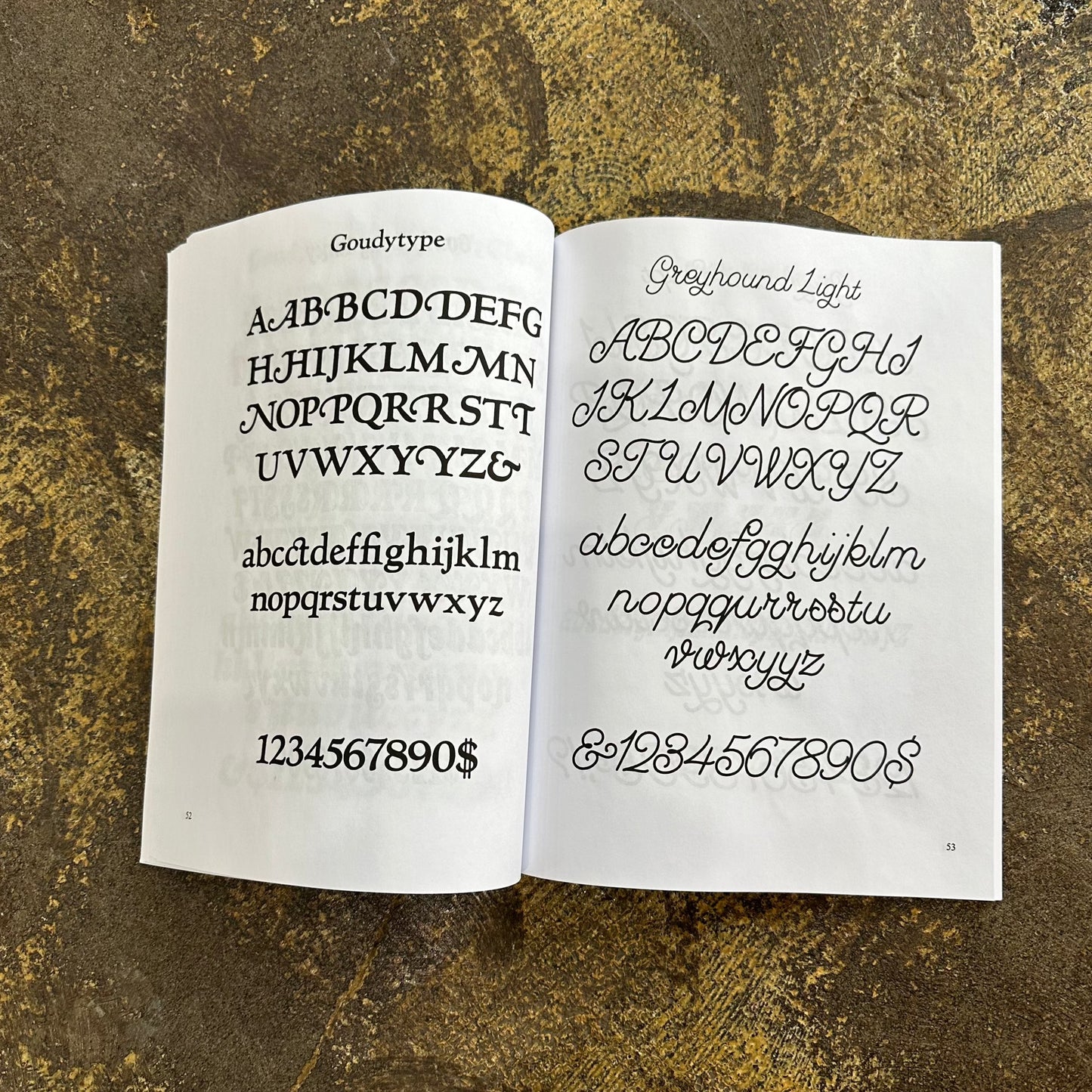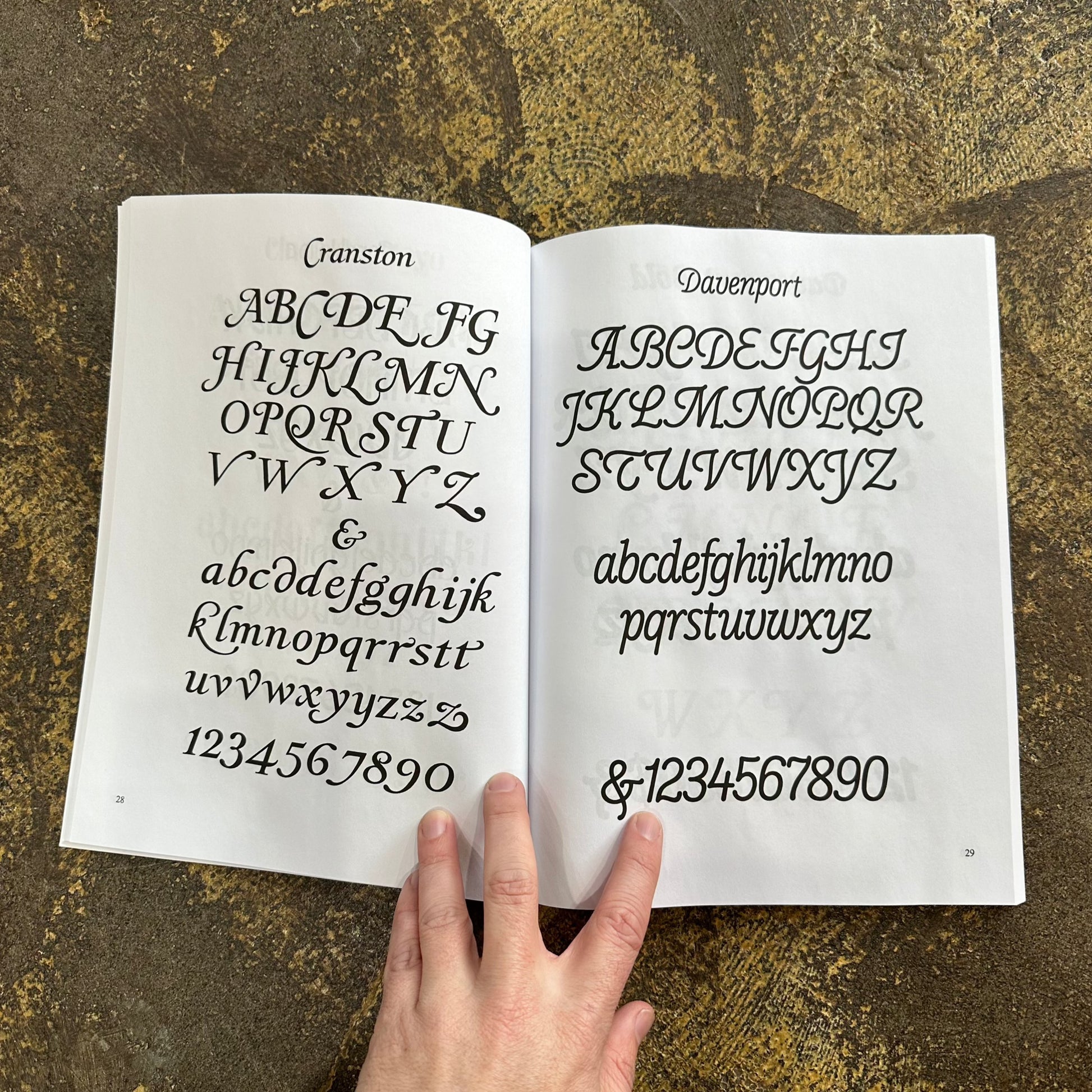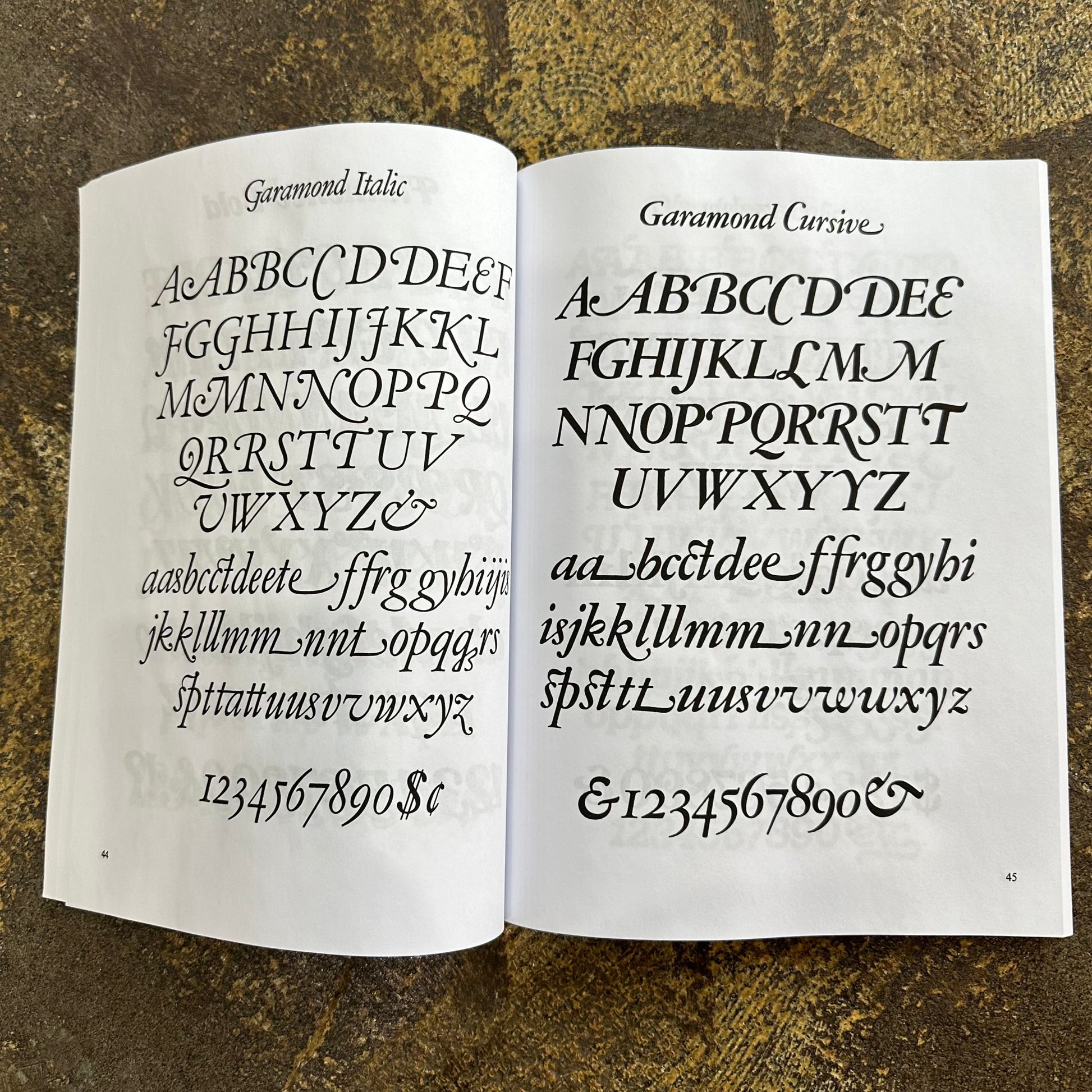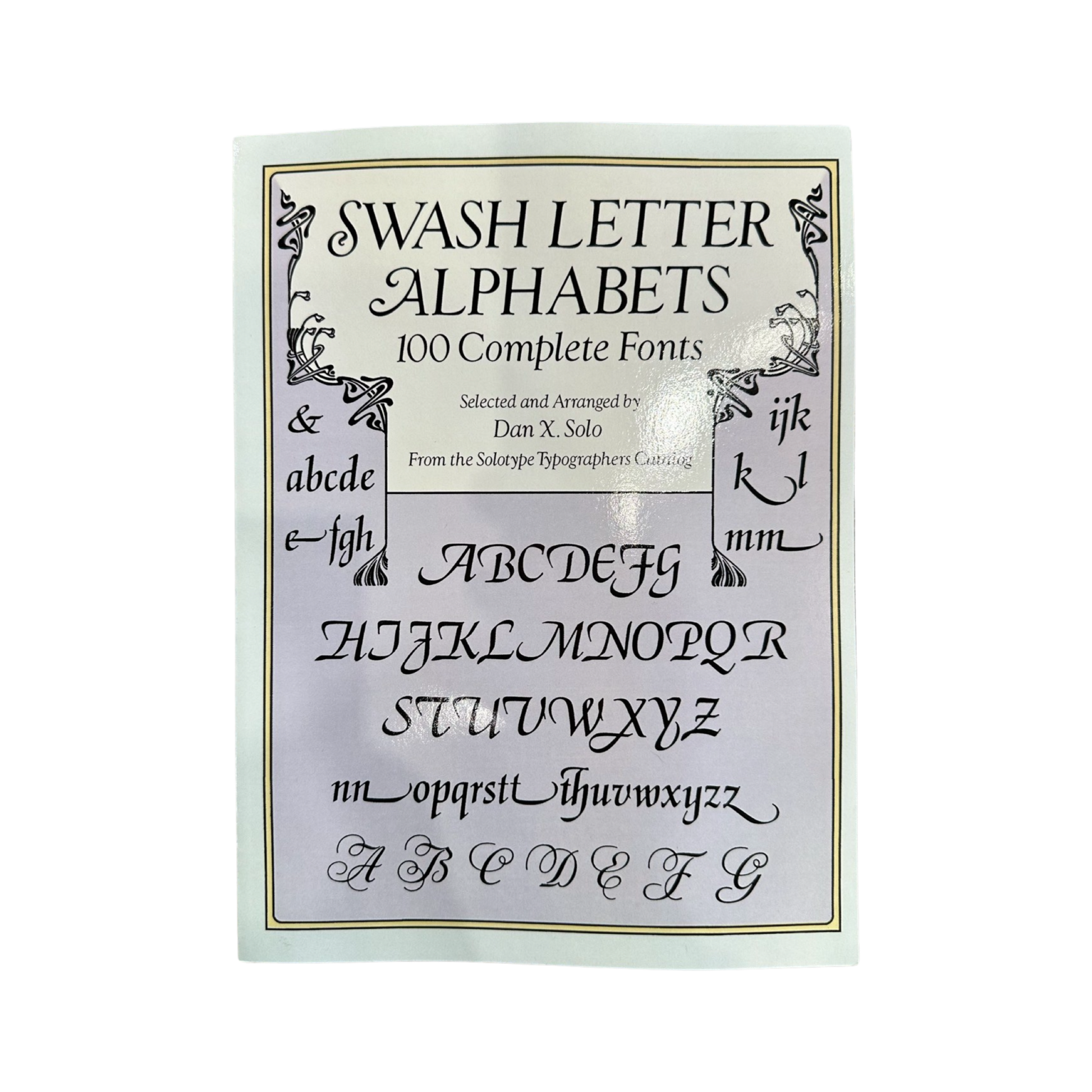
Swash Letter Alphabets 100 Complete Fonts Book
Ornate, decorative letters, formed with long tails and flourishes, will add panache and style to display ads, posters, signs, menus -- almost any printed communication.
Add a touch of panache and style to a wide variety of graphic projects with the decorative letters in this unusual and practical collection. Typographer Dan X. Solo has compiled 100 different swash letter fonts -- typefaces characterized by ornate letters with long tails and flourishes. Included here are: Cantini Casual; Cranston; El Greco; Goudy Cursive; Italian Slab Fancy; Mardi Gras Regular; Raffia Initials; Rousseau Fancy; Allegro Swash; Artcraft and dozens more.
All fonts include uppercase alphabets; most also contain lowercase letters and numerals. Inexpensive and royalty-free, these alphabets are ideal for use in display ads, on posters, signs, menus -- almost any printed communications.
Add a touch of panache and style to a wide variety of graphic projects with the decorative letters in this unusual and practical collection. Typographer Dan X. Solo has compiled 100 different swash letter fonts -- typefaces characterized by ornate letters with long tails and flourishes. Included here are: Cantini Casual; Cranston; El Greco; Goudy Cursive; Italian Slab Fancy; Mardi Gras Regular; Raffia Initials; Rousseau Fancy; Allegro Swash; Artcraft; and dozens more.
All fonts include uppercase alphabets; most also contain lowercase letters and numerals. Inexpensive and royalty-free, these alphabets are ideal for use in display ads, on posters, signs, menus -- almost any printed communications.